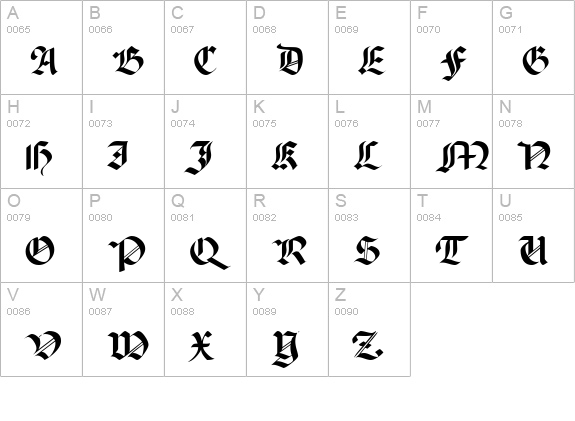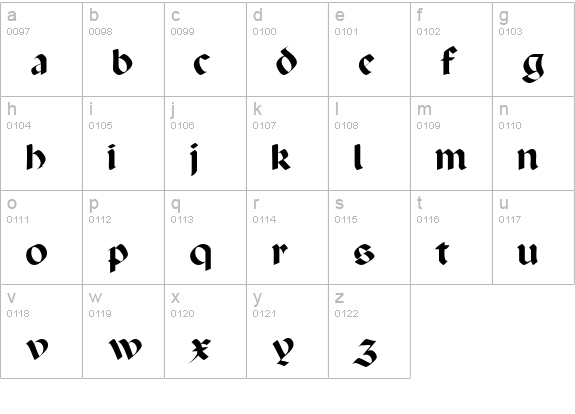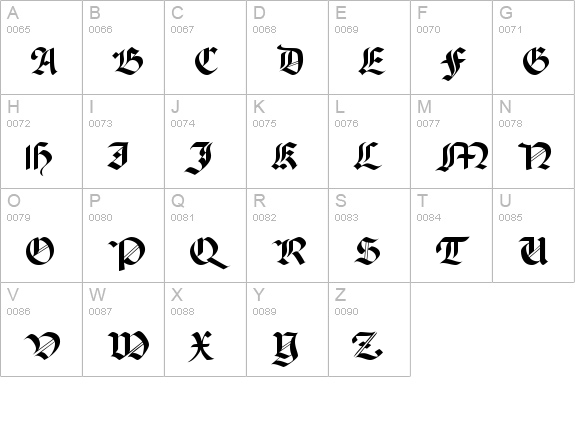
BallistaDisplayScriptSSK Font Details
BallistaDisplayScriptSSK font is a beautifully crafted typeface that exudes elegance and sophistication. With its intricate script design and stylish curves, this font is perfect for adding a touch of class to your projects. Whether you're working on invitations, posters, or branding materials, BallistaDisplayScriptSSK font will make your text stand out. The best part? This font is completely free for personal and commercial use. You can easily download it from FontsMarket.com and start using it in your designs today. Don't miss out on this amazing opportunity to elevate your work with the exquisite BallistaDisplayScriptSSK font.